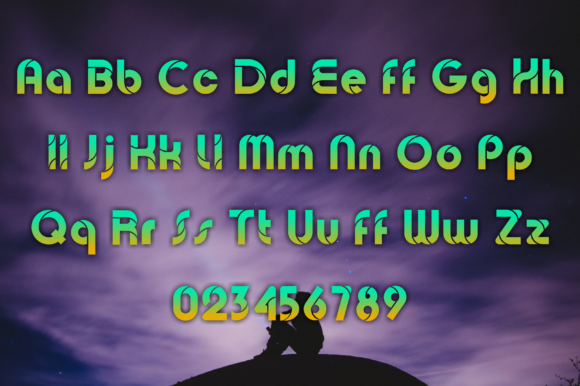
The Bauman Font: A Modern Touch for Your Designs
Have you ever been in the middle of a design project, and suddenly, you’re stuck on finding the perfect font? I recall a recent experience where I was working on a branding project for a trendy boutique, and I just couldn’t find a font that captured the modern, playful vibe I was going for. That’s when I stumbled upon the Bauman font, and it instantly became my go-to choice.
A Personal Review of Bauman Font
The Bauman font is a cute sans serif font that adds a modern touch to any design. Here’s what I love about it:
- ✨ Clean and Simple Design: Bauman’s clean lines and simple design make it perfect for a wide range of projects, from branding and advertising to crafting and DIY tutorials.
- ✅ Highly Versatile: This font works well in both digital and print formats, making it a great choice for designers who work across multiple platforms.
- 💡 Easy to Read: Bauman’s clear and concise design ensures that your text is always easy to read, even at smaller font sizes.
While Bauman is an excellent font, it’s not without its quirks:
- 🤔 Limited Emphasis on Details: Some designers might find that Bauman lacks the intricate details and flair that other fonts offer.
- ⚠️ Overuse Can Be a Problem: As with any font, using Bauman excessively can make your design look monotonous. It’s essential to balance it with other design elements.
The Story Behind Bauman Font
The Bauman font was designed by a team of creatives who aimed to create a modern, versatile font that could be used across various platforms. Inspired by the simplicity and elegance of urban design, Bauman’s clean lines and simple design make it perfect for a wide range of projects.
Q: What is the Bauman font best used for?
A: Bauman font is best used for projects that require a modern, clean, and simple design, such as branding, advertising, and crafting.
Q: Is Bauman font suitable for body text?
A: Yes, Bauman font is suitable for body text, but it’s recommended to use a font size of at least 12 points for optimal readability.